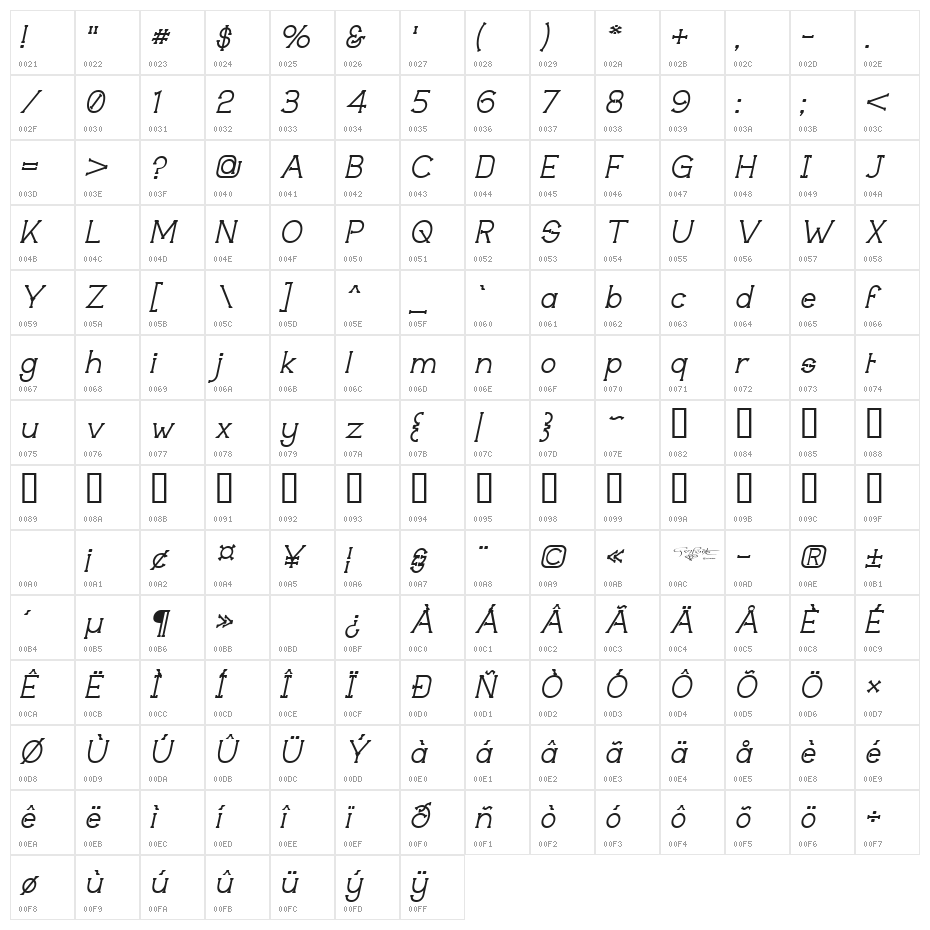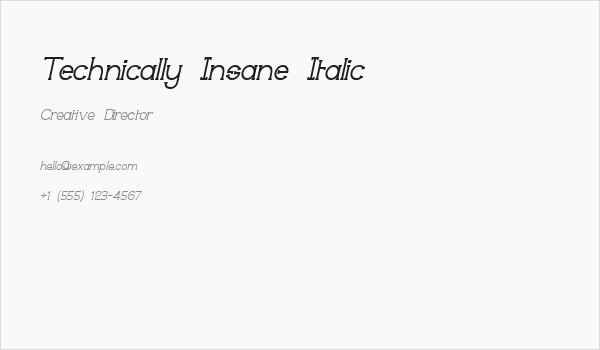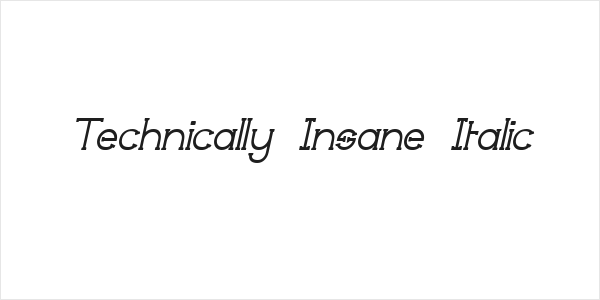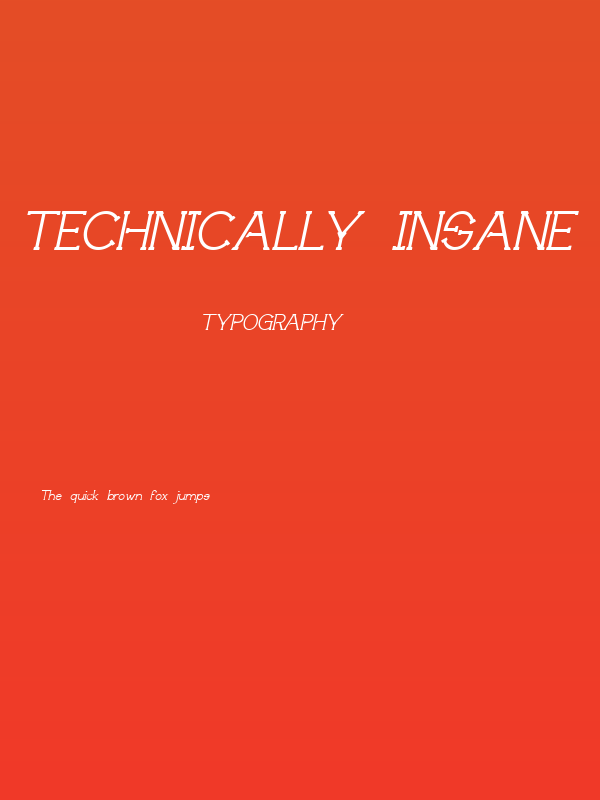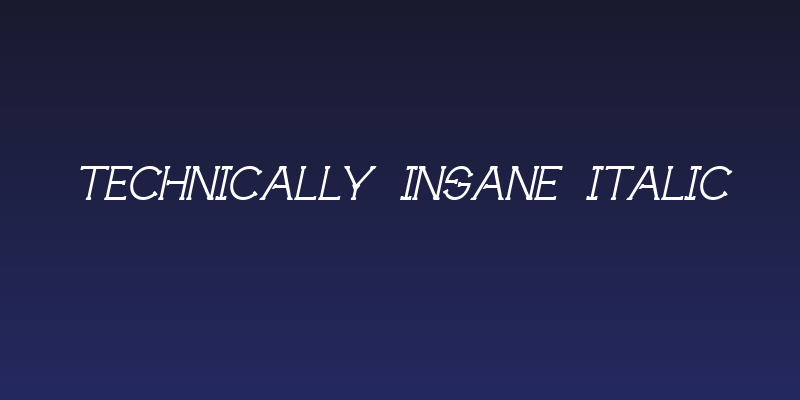
Technically Insane Italic Font
Technically Insane Italic Description
This font features a dynamic and energetic italic style with a distinct slant, giving it a sense of motion and fluidity. The characters are crafted with a modern flair, showcasing a blend of sharp angles and smooth curves. The uppercase letters are bold and assertive, while the lowercase letters maintain a consistent flow, enhancing readability. Numbers are clear and well-defined, making them suitable for various applications. The special characters are uniquely styled, adding a touch of creativity to the overall design. This font's unique characteristics make it stand out, offering a fresh and contemporary look.
| Use Case | Headlines, Logos, Creative content |
| Proposed Projects | Ideal for branding projects, modern advertising, dynamic posters, and creative digital content. |